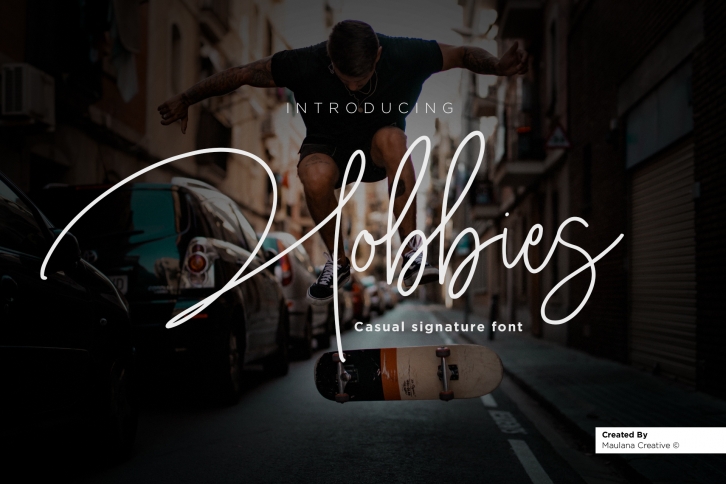
Hobbies Signature is a beautiful font that was designed by Maulana Creative. It's a great choice for designers and creatives who need such a font. It was released on September 3, 2019 and the file size is 21.18 MB. Hobbies Signature may give a more youthful, expressive and casual look to your project. It is a very beautiful, refined, elegant, and high-quality font.